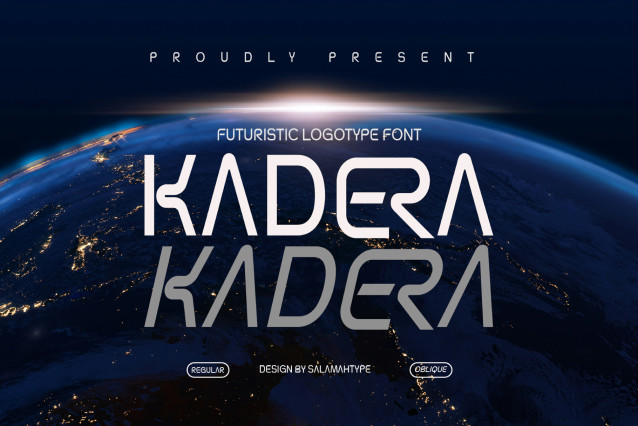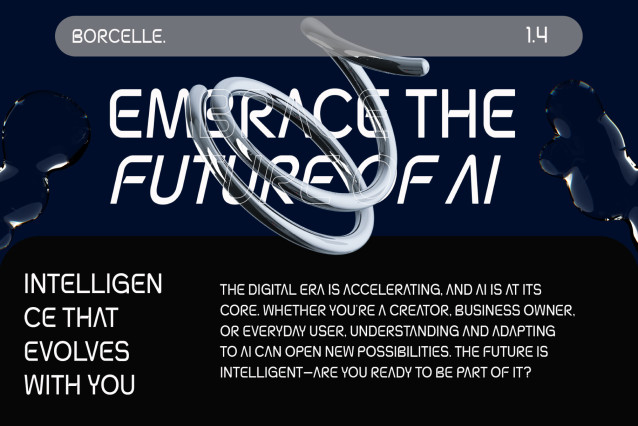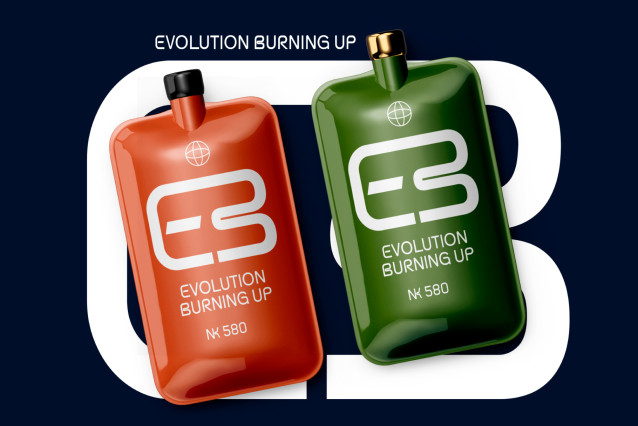
Kadera – Futuristic Font
Introducing Kadera, a sleek and innovative logotype font that embodies the spirit of the future. Designed for cutting-edge branding, Kadera features a bold and modern aesthetic with unique letterforms that merge geometry and minimalism, perfect for sci-fi themes, tech startups, gaming, apps, and digital design projects.